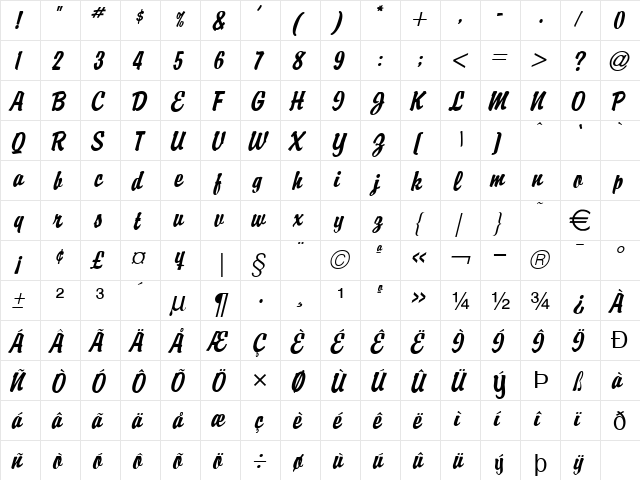
BriskExtended Italic
Design Context for BriskExtended Typeface
BriskExtended is a composed and adaptable typeface that performs quietly and consistently across a wide range of design contexts. The slanted form adds forward momentum and visual energy.